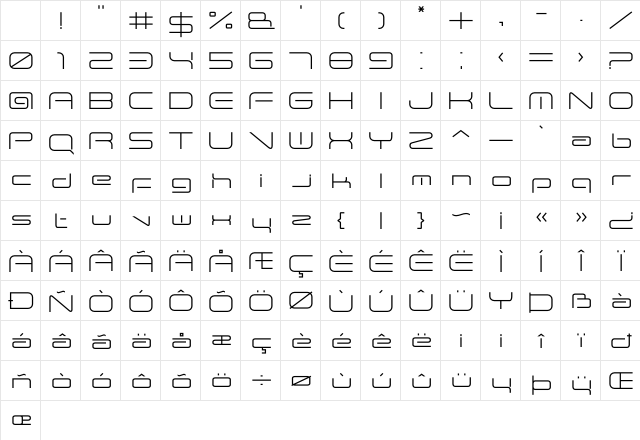
ANDTIOH One is a composed and adaptable typeface that performs quietly and consistently across a wide range of design contexts.
Pro Tip: Use ANDTIOH One in both headline and body roles to test its range before committing to a single application.